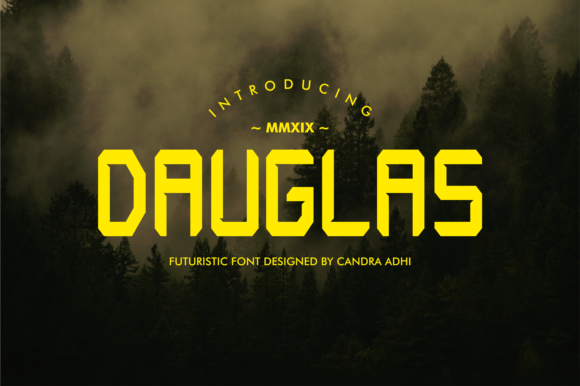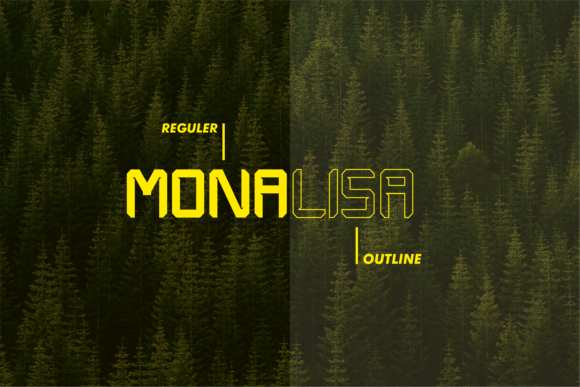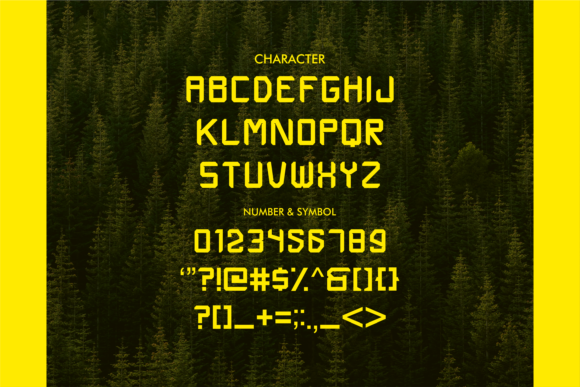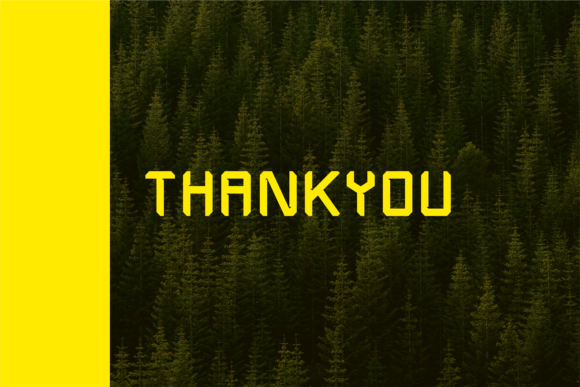
Introducing Dauglas Font: The Ultimate Retro Display Font for Designers and Crafters
Are you looking for a font that can add a touch of coolness and boldness to your designs? Look no further than Dauglas Font! This retro-looking display font is perfect for creating stunning posters, flyers, and prints that will grab attention and leave a lasting impression. In this article, we’ll explore the features and benefits of Dauglas Font, and show you how to make the most of its endless possibilities.
What is Dauglas Font?
Dauglas Font is a display font designed to make a statement. Its bold and retro aesthetic makes it perfect for use in high-impact designs, such as posters, flyers, and prints. The font’s unique style is inspired by classic retro typography, with clean lines, bold shapes, and a distinctive character.
Key Features of Dauglas Font
- Bold and Eye-Catching: Dauglas Font is designed to grab attention and make a statement. Its bold and chunky design ensures that your text will stand out from the crowd.
- Retro Aesthetic: The font’s retro style is inspired by classic typography from the 70s and 80s, making it perfect for designers and crafters who love vintage designs.
- Clean Lines: Dauglas Font features clean lines and smooth curves, making it easy to read and understand.
- Endless Possibilities: With Dauglas Font, you can create a wide range of designs, from bold and colorful posters to elegant and sophisticated prints.
Benefits of Using Dauglas Font
So why should you choose Dauglas Font for your designs? Here are just a few benefits of using this amazing font:
- Instant Impact: Dauglas Font is designed to make an instant impact. Its bold and eye-catching design ensures that your text will grab attention and leave a lasting impression.
- Versatile: The font’s versatility means that you can use it for a wide range of designs, from posters and flyers to prints and more.
- Unique Style: Dauglas Font’s unique retro aesthetic sets it apart from other fonts, making it perfect for designers and crafters who want to add a touch of personality to their designs.
How to Use Dauglas Font
Using Dauglas Font is easy! Here are a few tips to get you started:
- Choose the Right Size: Dauglas Font is designed to be used in large sizes, so choose a size that will make an impact.
- Experiment with Colors: The font’s bold design looks great in a wide range of colors, so don’t be afraid to experiment and find the perfect color for your design.
- Pair with Other Fonts: Dauglas Font looks great when paired with other fonts, so try combining it with a sans-serif font for a bold and modern look.
Endless Possibilities with Dauglas Font
So what can you create with Dauglas Font? The possibilities are endless! Here are a few ideas to get you started:
- Posters: Create bold and eye-catching posters that will grab attention and leave a lasting impression.
- Flyers: Use Dauglas Font to create stunning flyers that will stand out from the crowd.
- Prints: Add a touch of elegance and sophistication to your prints with Dauglas Font.
- Signage: Use Dauglas Font to create bold and eye-catching signage that will grab attention.
In conclusion, Dauglas Font is a cool, bold, and retro-looking display font that is perfect for designers and crafters who want to add a touch of personality to their designs. With its endless possibilities and easy-to-use design, Dauglas Font is the perfect choice for anyone looking to create stunning posters, flyers, and prints. So why wait? Download Dauglas Font today and start exploring its endless possibilities!